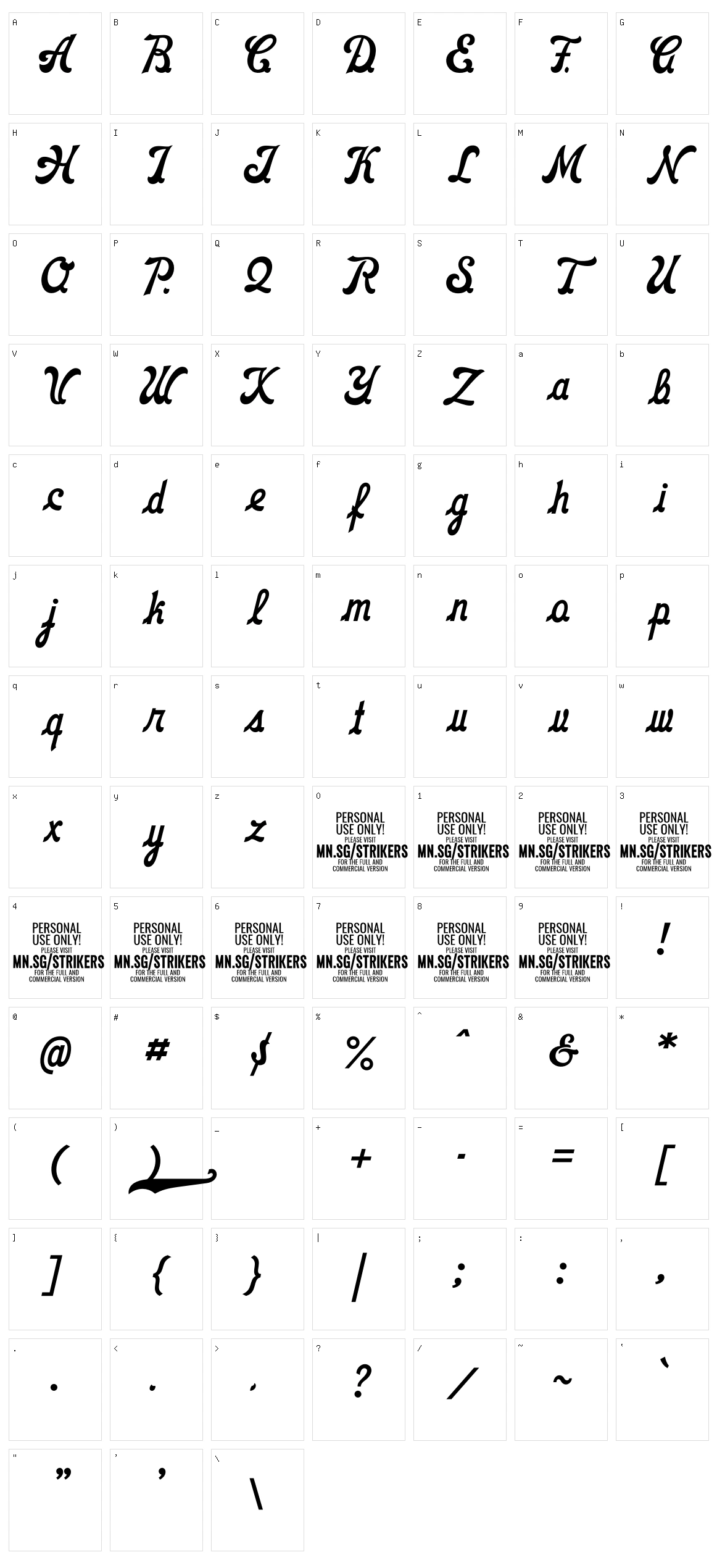
Strikers Script is a vintage baseball font.
In a cool retro look, this calligraphic family has an optimistic attitude and the genuine appearance of a sport jersey or a club logotype.
The Strikers Script family consists of 14 professional styles, such as Thin, Bold, Outlined and Swashes, plus more variations and combinations, complimenting each other for ultimate usability.
Use underscore _ to make a swash.
Example: Letter_
Use multiple underscores to make longer swashes.
Example: Baltimore____
For the outlined version, use symbols < > around the word to make beginning and end.
Example: <hello>
The font is built with advanced OpenType functionality and has a guaranteed top-notch quality, containing stylistic and contextual alternates, ligatures and more features; all to give you full control and customizability.
It has extensive lingual support, covering all Latin-based languages, from Northern Europe to South Africa, from America to South-East Asia.
It contains all characters and symbols you'll ever need, including all punctuation and numbers.